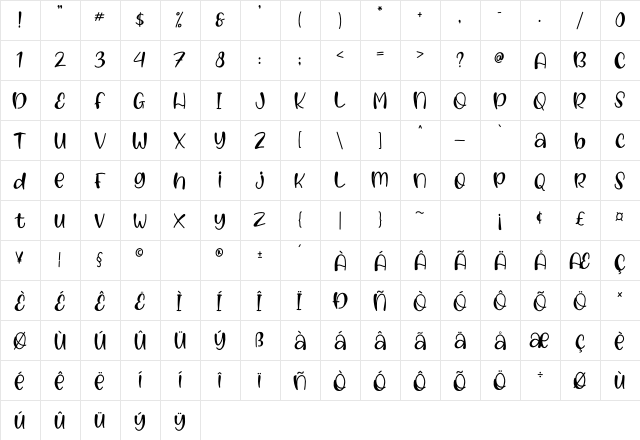
Blooms Regular
Design Context for Blooms Typeface
Blooms is a composed and adaptable typeface that performs quietly and consistently across a wide range of design contexts.